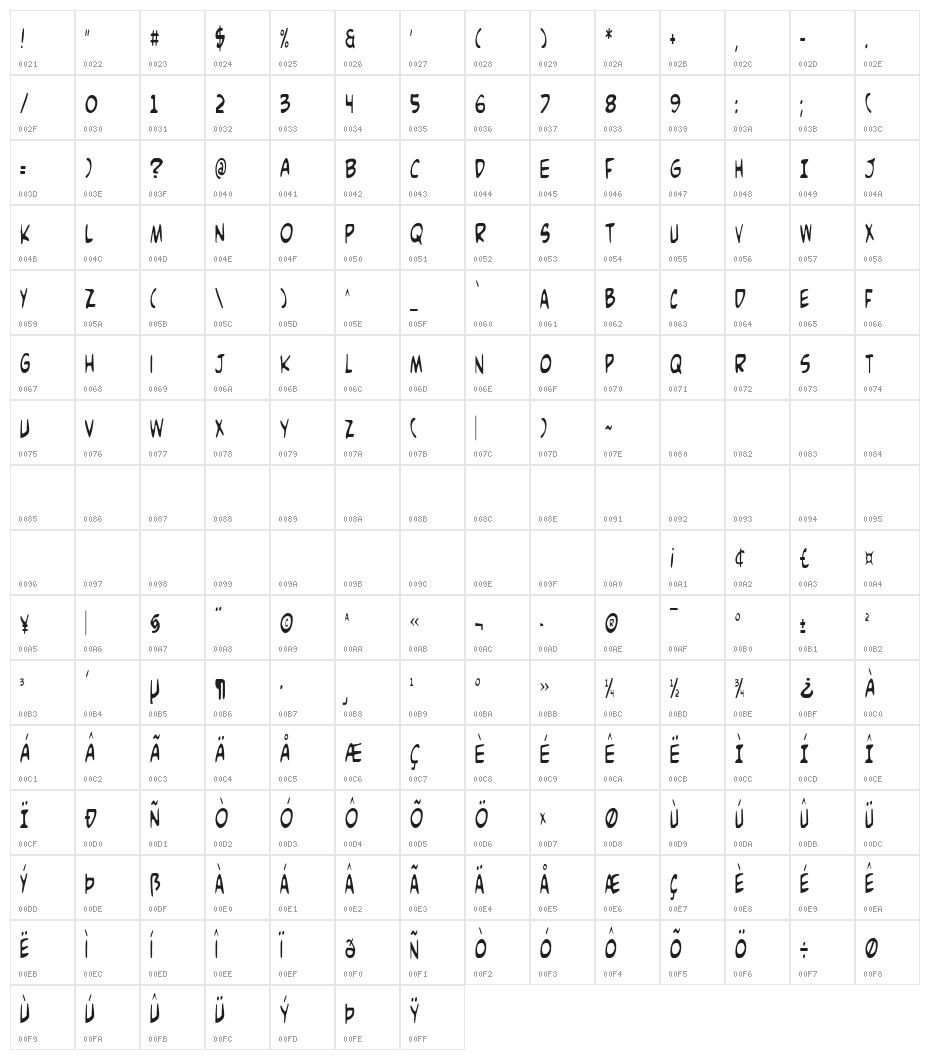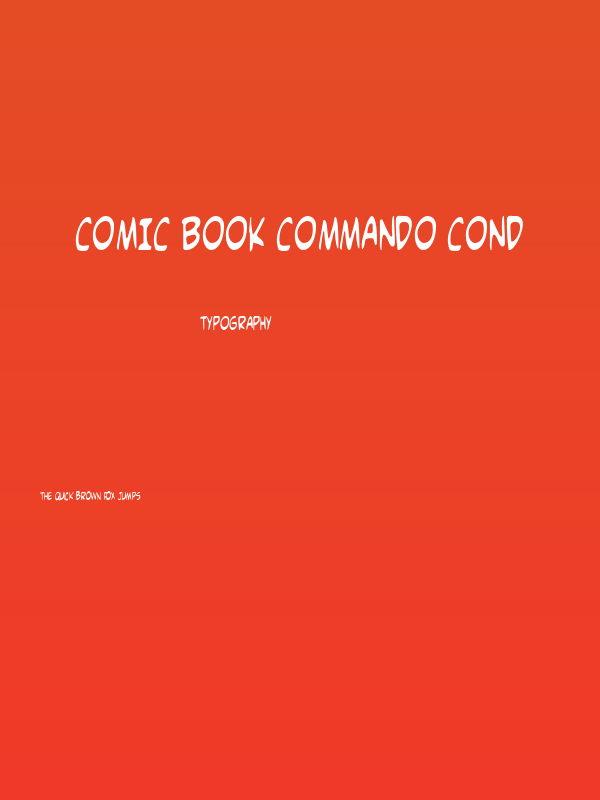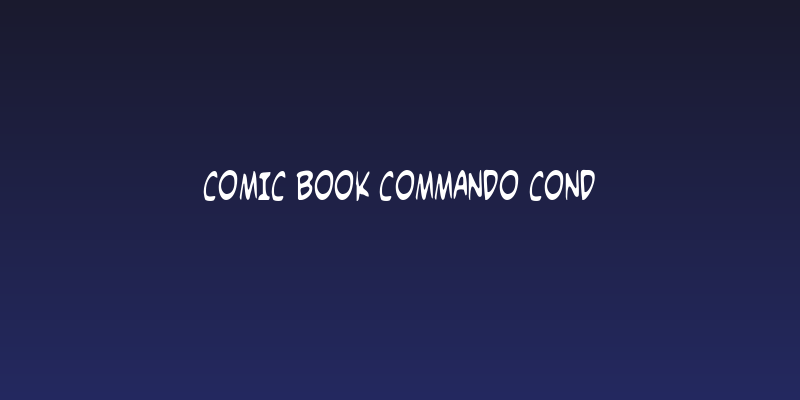
Comic Book Commando Cond Font
Comic Book Commando Cond Description
This font features a playful and bold style reminiscent of comic book lettering. The characters are slightly irregular, giving them a hand-drawn appearance that adds to their charm. The uppercase and lowercase letters maintain a consistent style, with rounded edges and a slightly condensed form. The numerals and special characters are designed to match the overall aesthetic, making them suitable for a variety of creative projects. The font's unique character shapes and lively appearance make it ideal for capturing attention and conveying a sense of fun and excitement.
| Overall Style | Playful, Comic |
| Proposed Projects | Ideal for comic books, children's books, playful branding, and creative posters. |